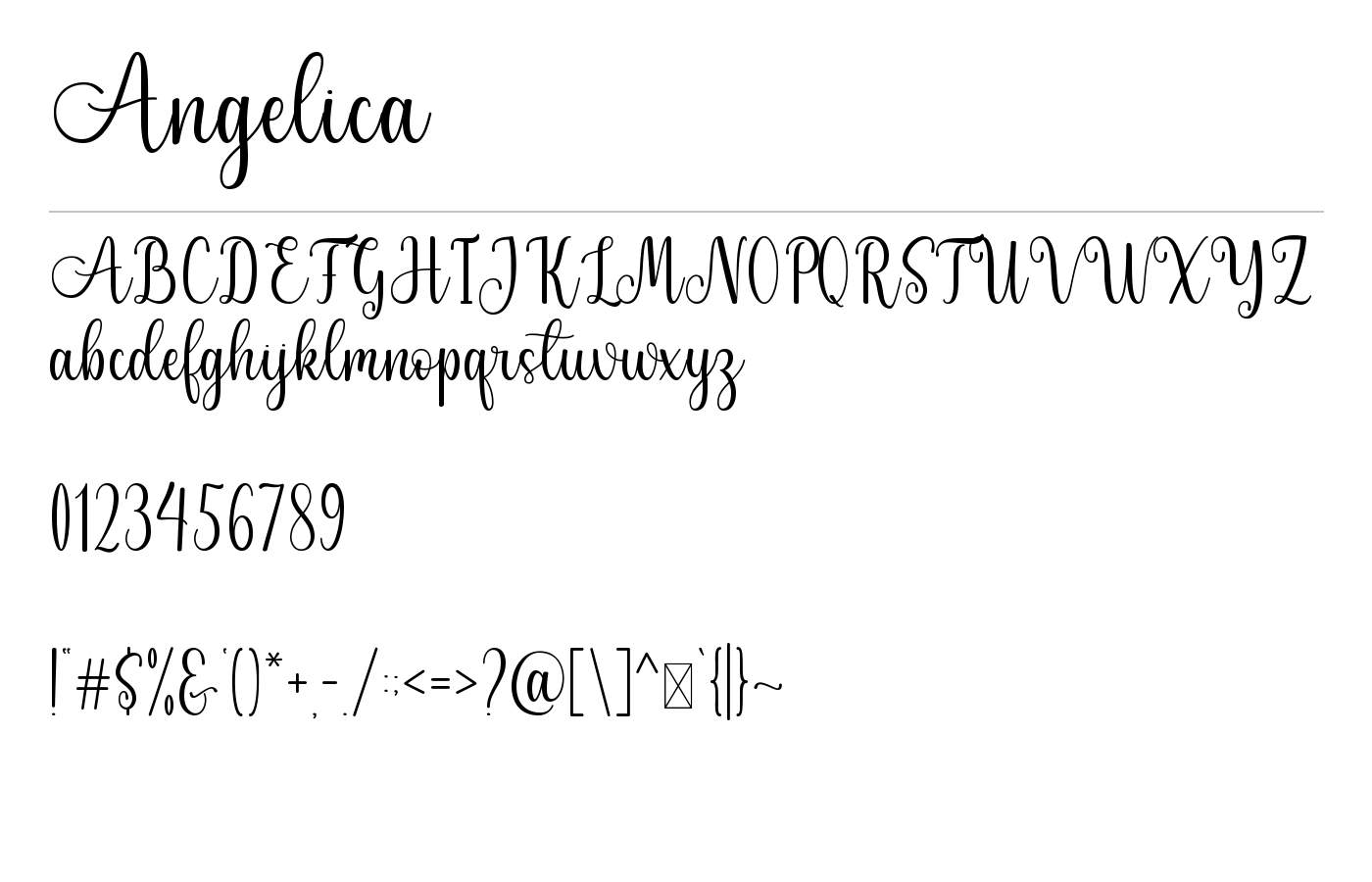
Angelica is a delicate script font with elegant, flowing letterforms that combine a handwritten charm with refined sophistication. Its slender strokes and distinctive curls create a graceful and romantic feel, making it perfect for wedding invitations, feminine branding, and stylish headlines that seek a touch of warmth and personality. This font shines in designs that require a personal yet polished look, adding an artistic flair without sacrificing readability.